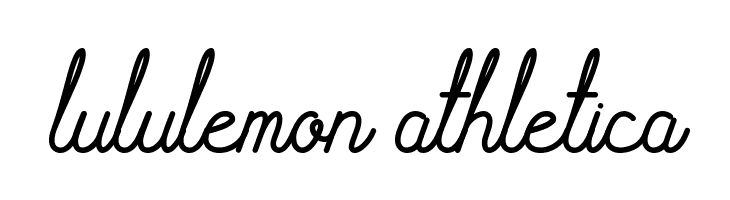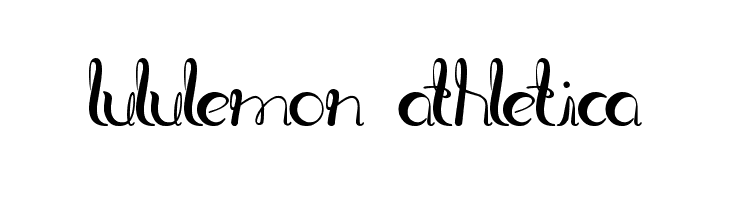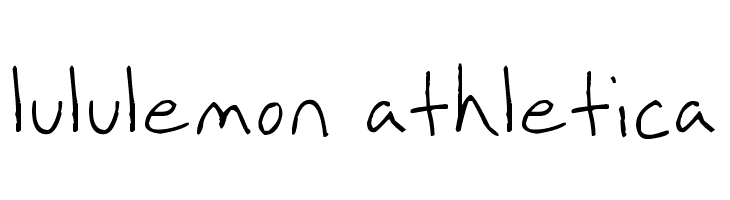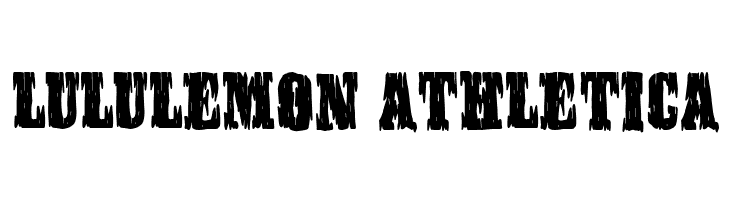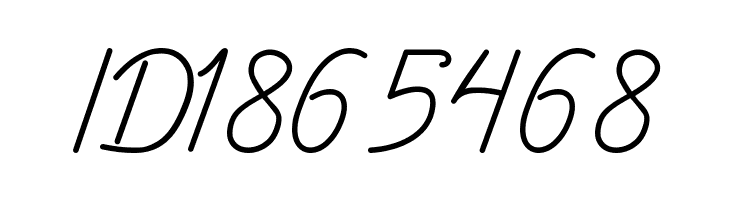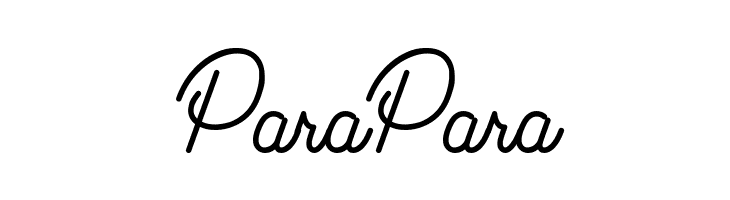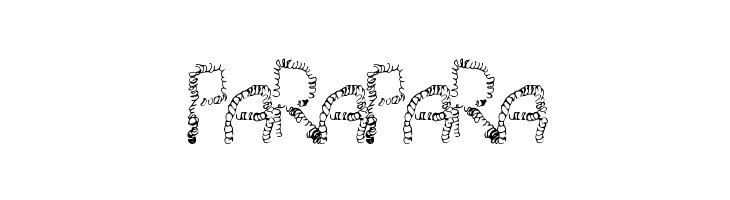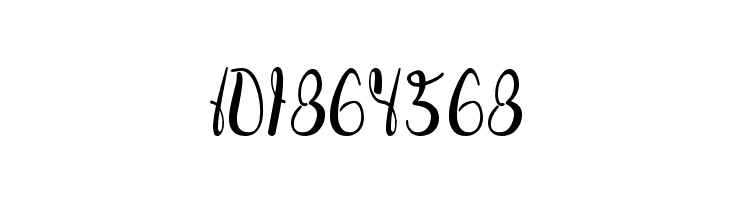
A tall, distressed font with jagged edges, perfect for horror themes.
A haunting, distressed font with tall, narrow letterforms and a scratchy texture.
A bold, flowing script font with elegant curves and dynamic movement.
A playful, curly font with noodle-like strokes and a whimsical appearance.
A bold, distressed font with a rugged, hand-crafted appearance.
A graceful script font with flowing, connected letters and elegant curves.
A sophisticated cursive font with elegant, flowing characters.
A modern, decorative font with a cursive, handwritten style.